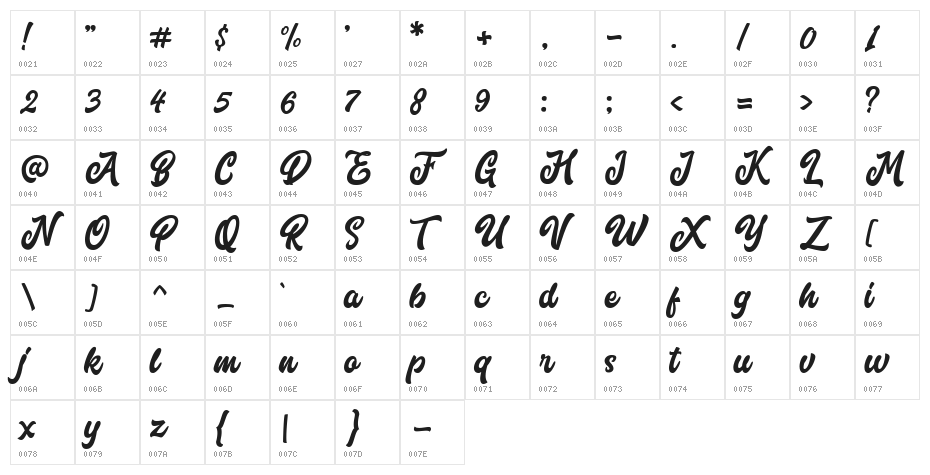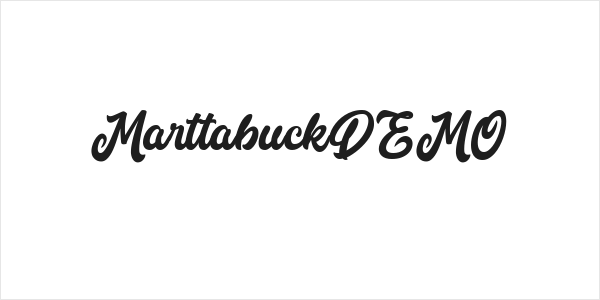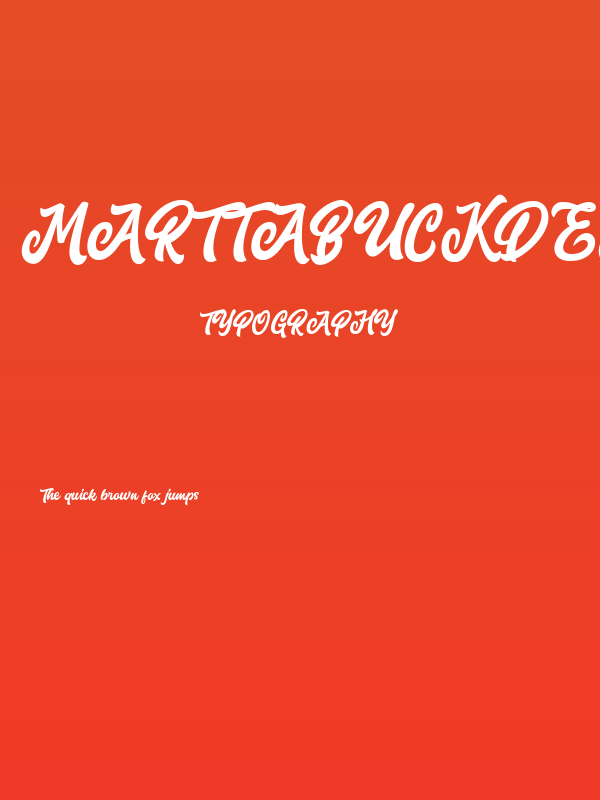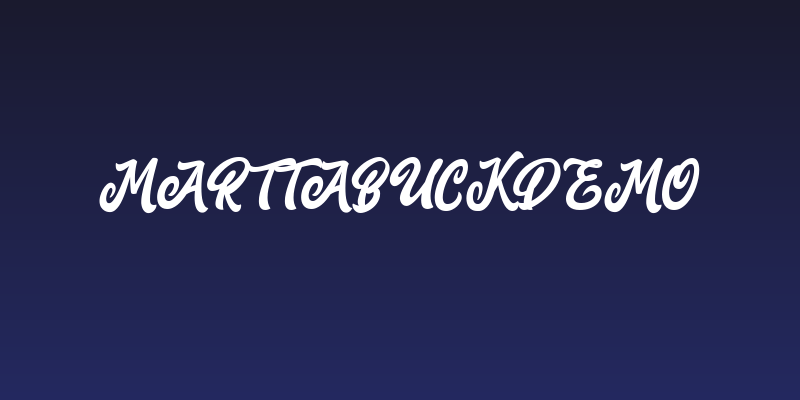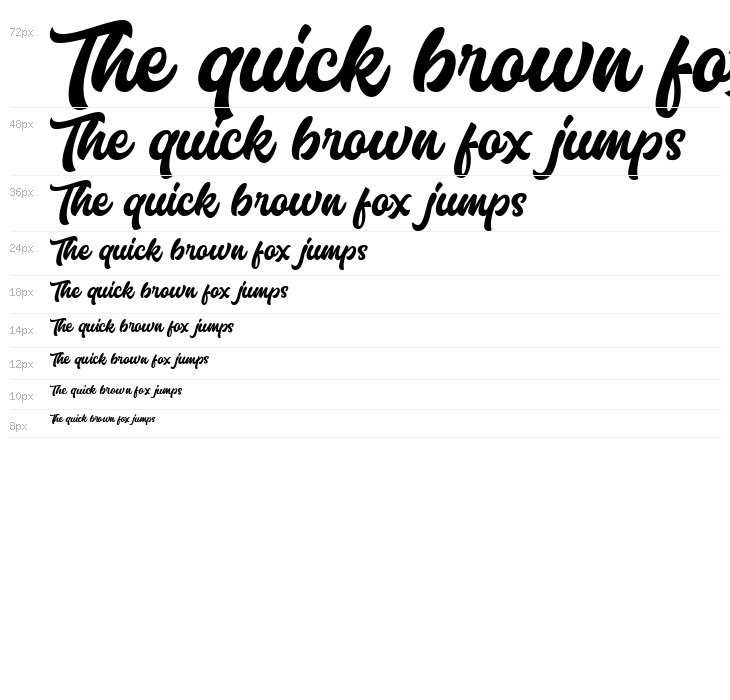
MarttabuckDEMO Font
MarttabuckDEMO Description
This font features a bold and expressive script style, characterized by its flowing, cursive letterforms. The uppercase letters are elegantly designed with sweeping curves and loops, while the lowercase letters maintain a consistent, fluid motion. The numbers and special characters are crafted with the same attention to detail, ensuring a cohesive look across all elements. The font's bold weight and high contrast between thick and thin strokes give it a dynamic and eye-catching appearance, making it suitable for various creative applications.
| Proposed Projects | Ideal for branding, invitations, greeting cards, and decorative headlines. |